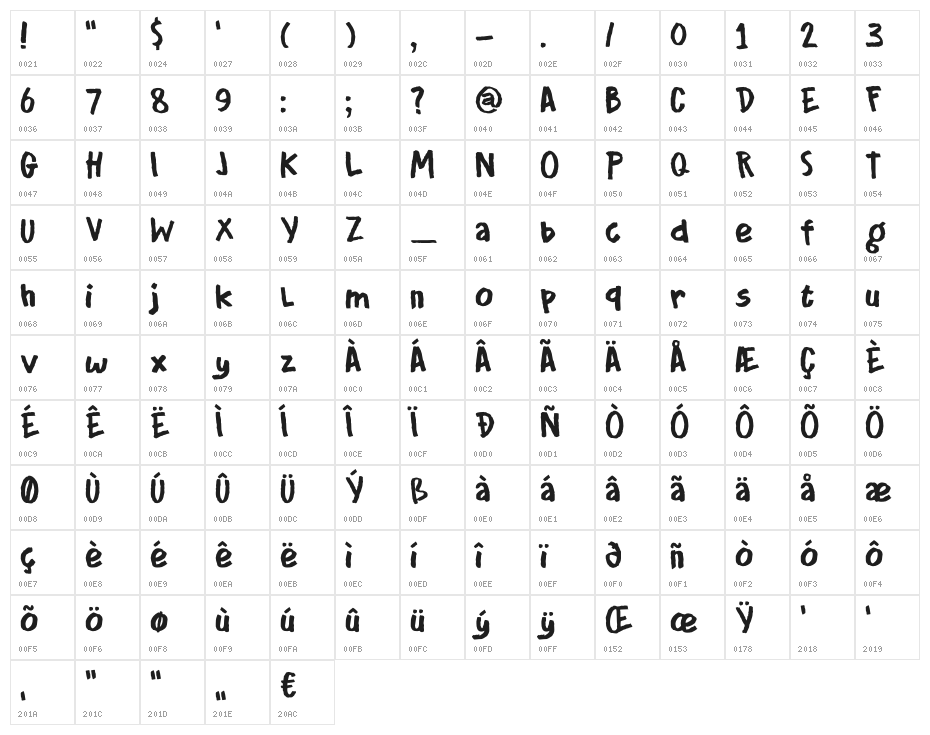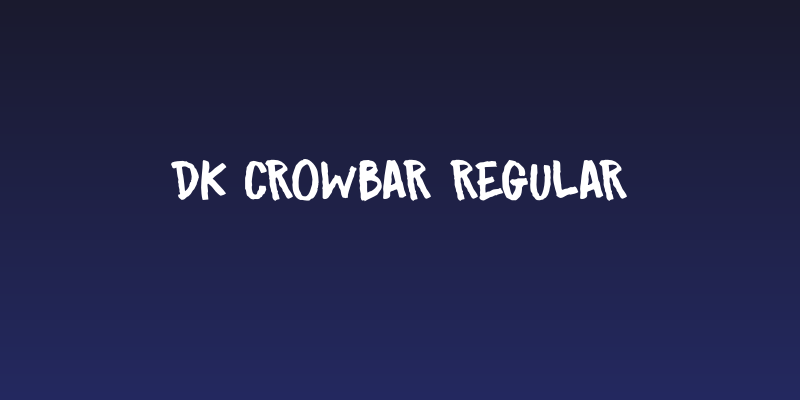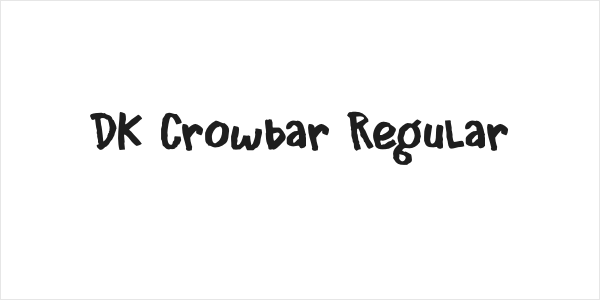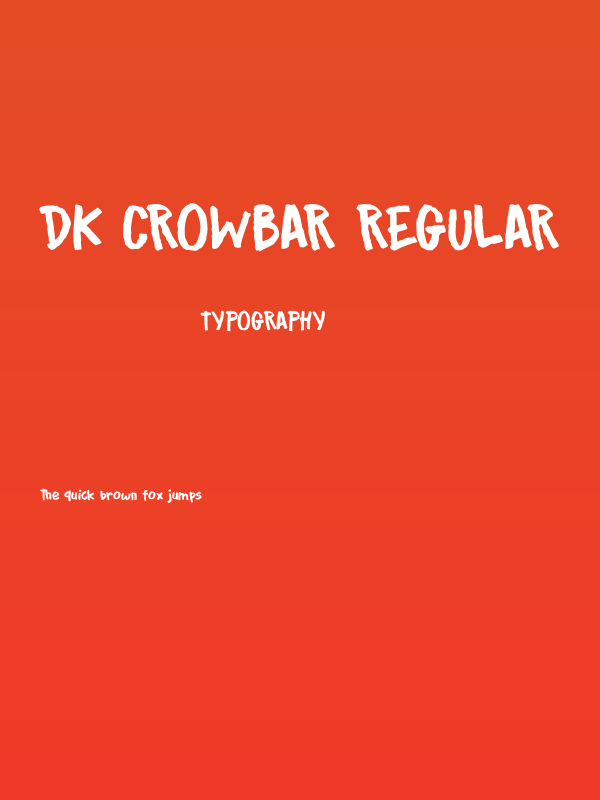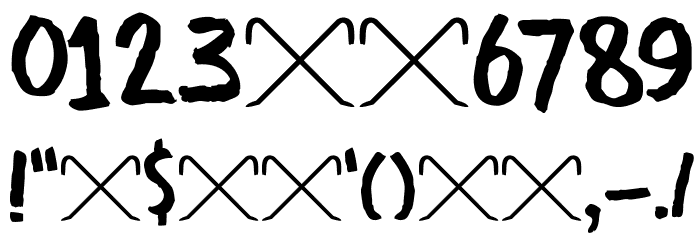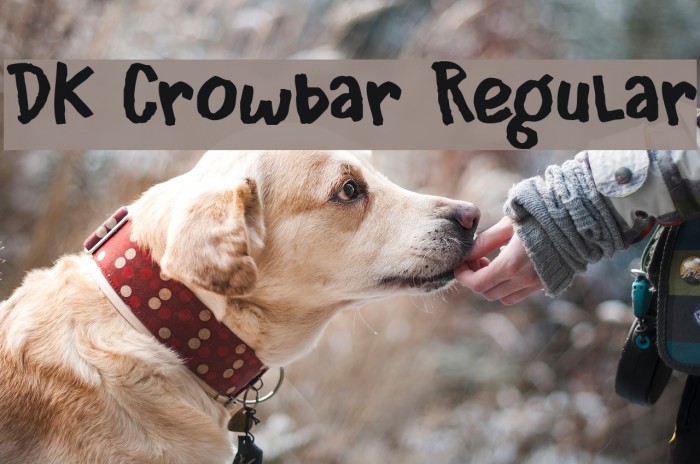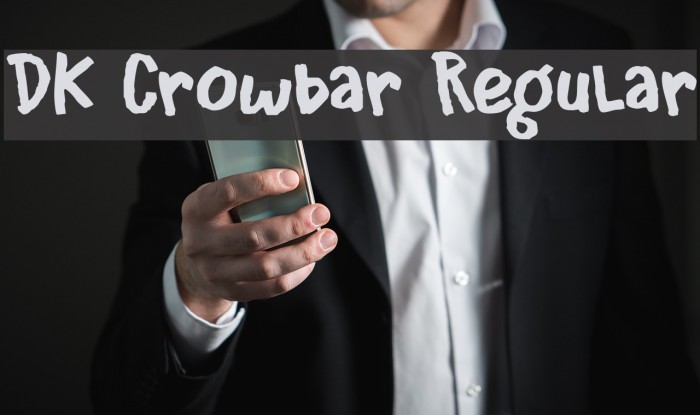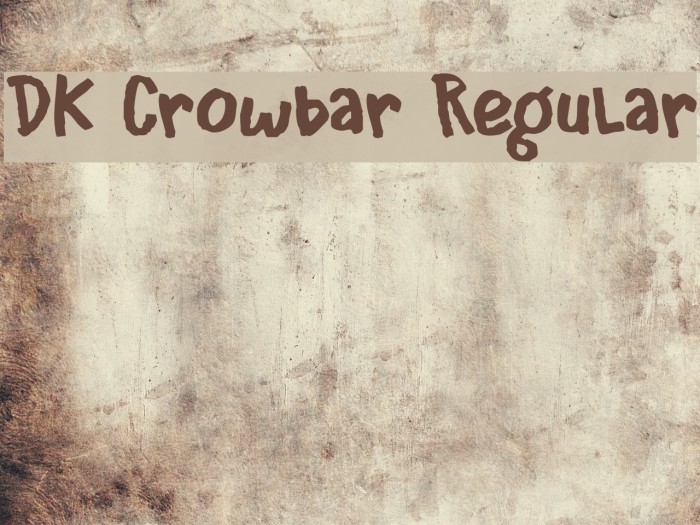
DK Crowbar Regular Font
DK Crowbar Regular Description
This font features a bold, hand-drawn style with a rough and organic texture, giving it a raw and expressive appearance. The letters are irregular and slightly tilted, adding a sense of dynamism and energy. The uppercase and lowercase characters maintain a consistent thickness, while the numbers and special characters follow the same rugged aesthetic. The overall look is informal and artistic, making it suitable for creative and unconventional projects.
| Proposed Projects | Ideal for posters, album covers, artistic branding, and creative social media graphics. |